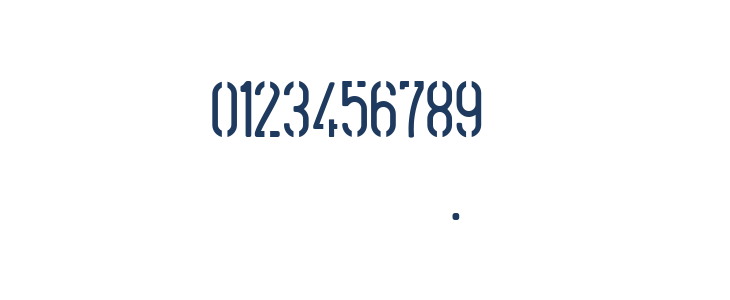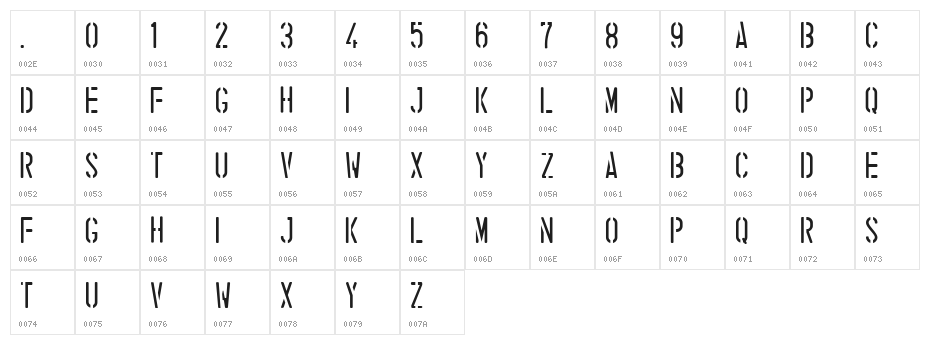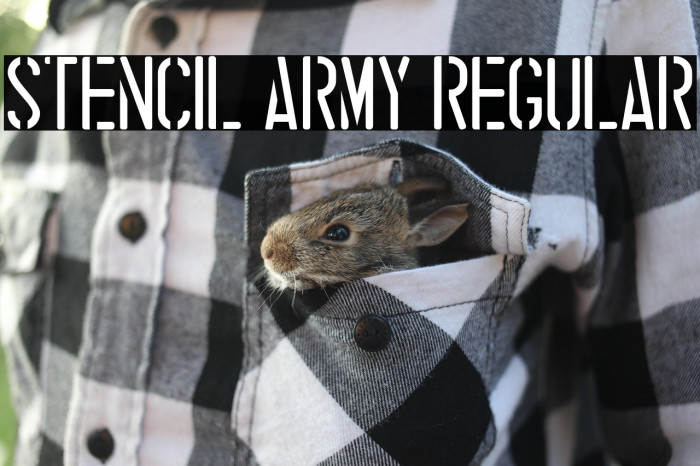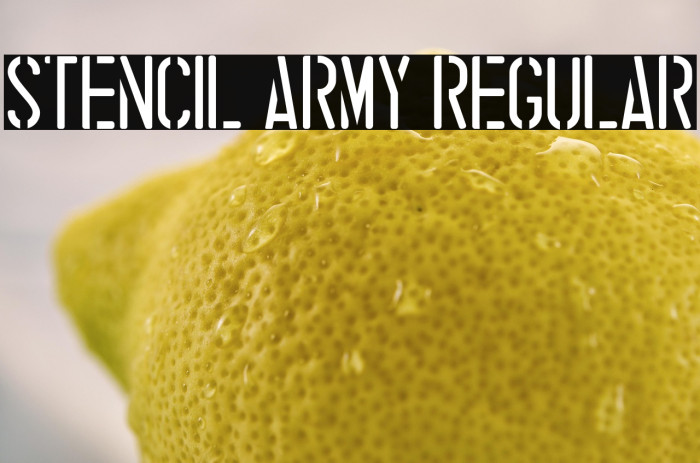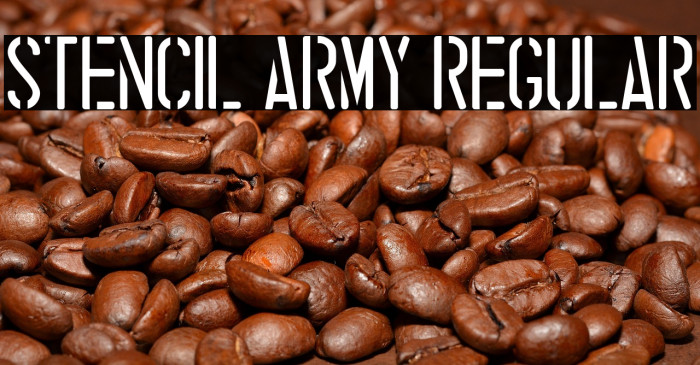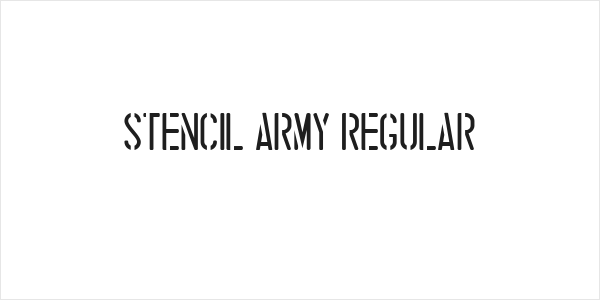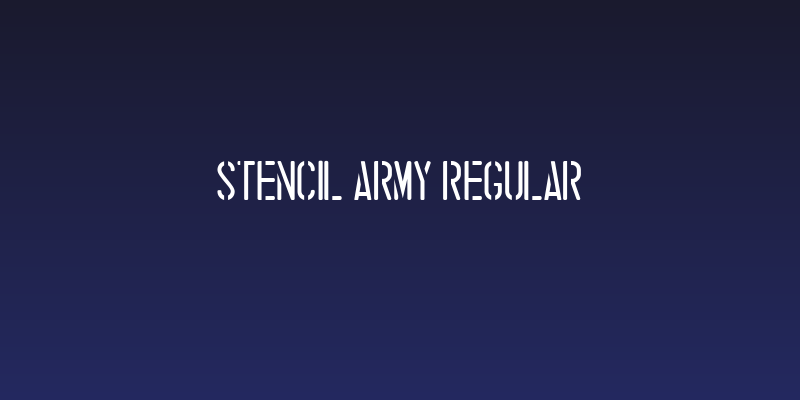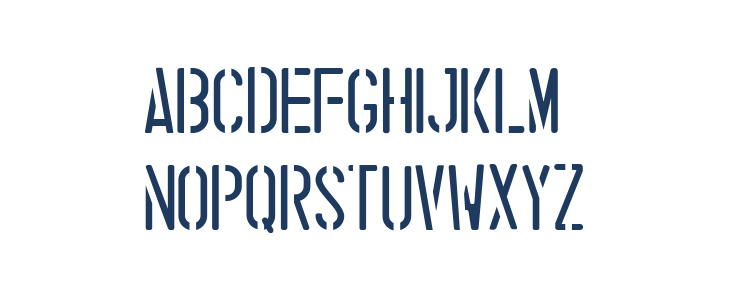
stencil army Regular Font
stencil army Regular Description
This font features a bold, military-inspired stencil design, characterized by its distinct cut-out sections that mimic the appearance of traditional stenciling. The uppercase letters are uniform in height, with clean, straight lines and sharp angles, giving it a structured and authoritative look. The numerals and special characters maintain the same stencil style, ensuring consistency across all characters. This font is ideal for projects that require a strong, impactful presence, such as military-themed designs, industrial branding, or signage that needs to stand out.
| Use Case | Headlines, Logos, Signage |
| Proposed Projects | Ideal for military-themed designs, industrial branding, signage, and impactful headlines. |